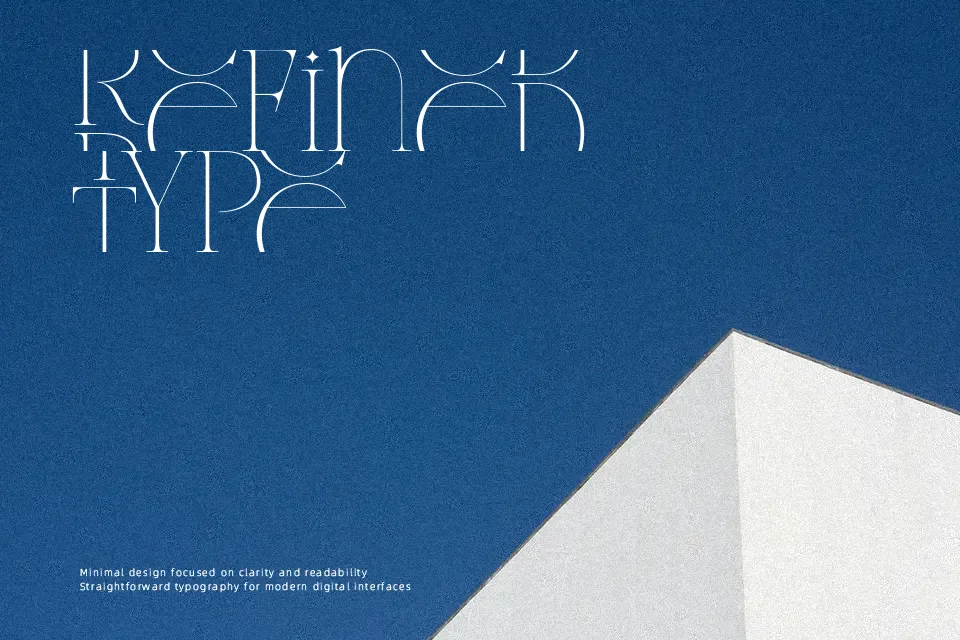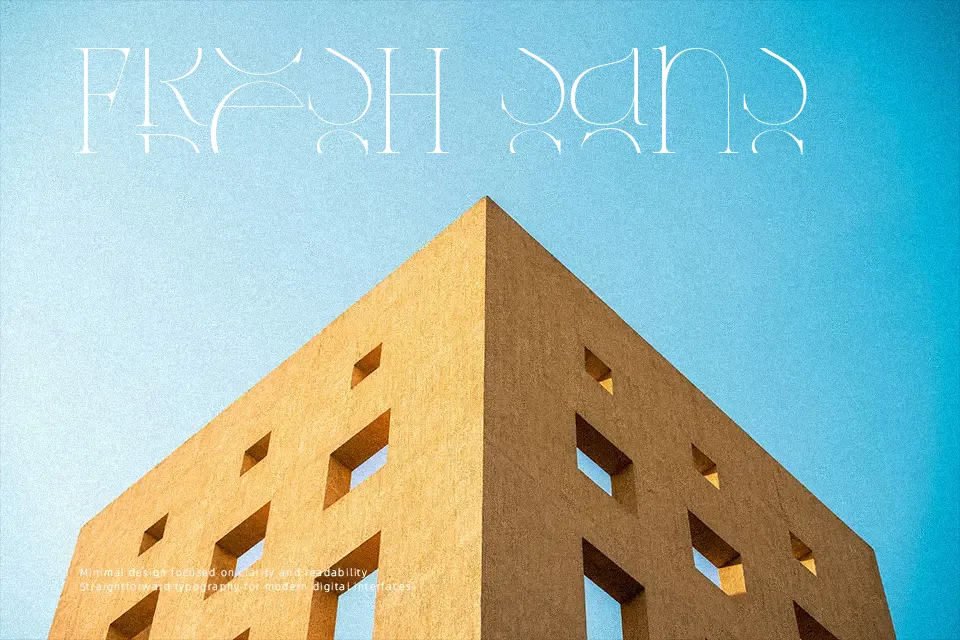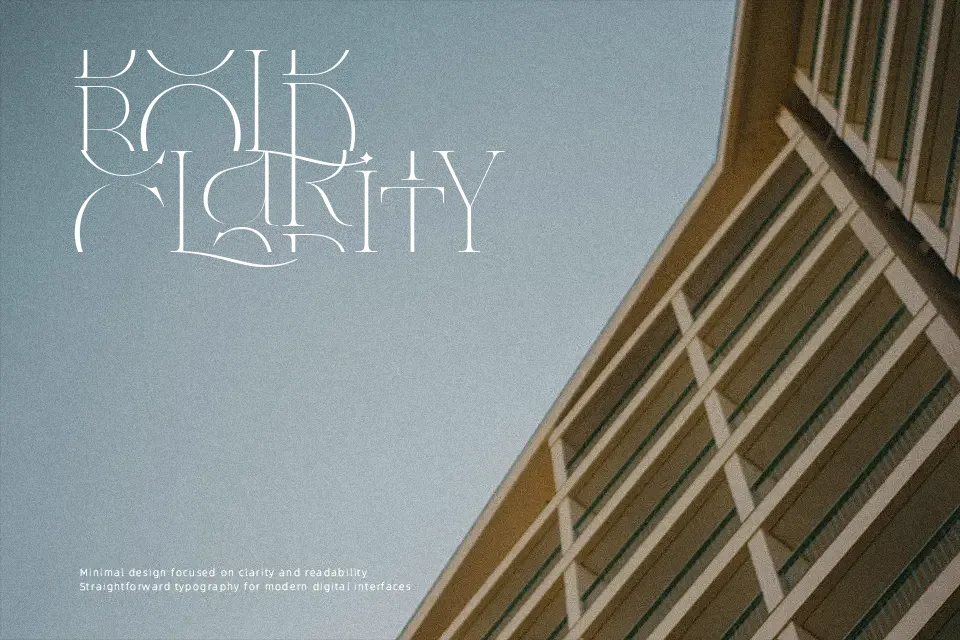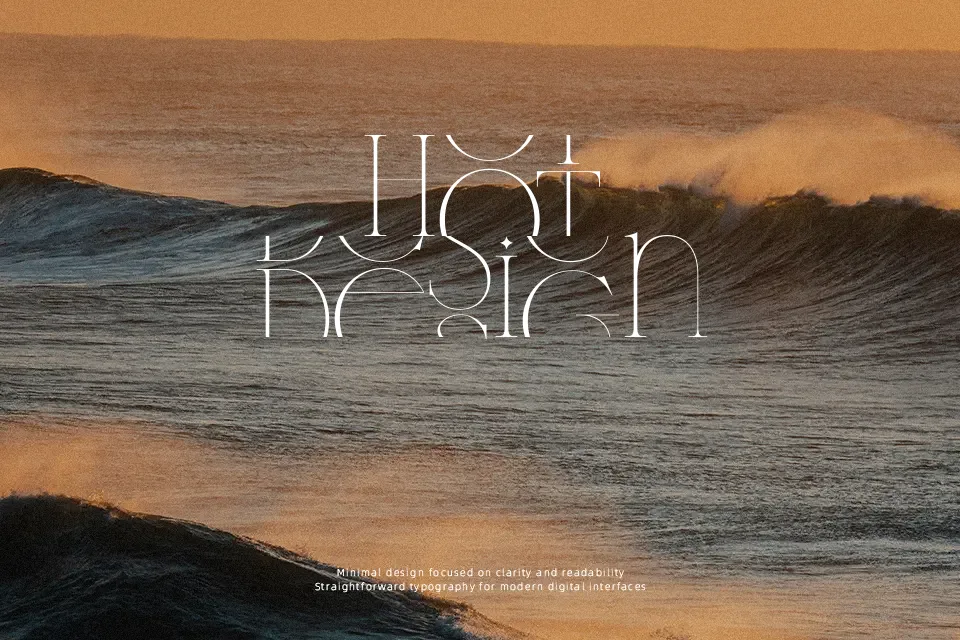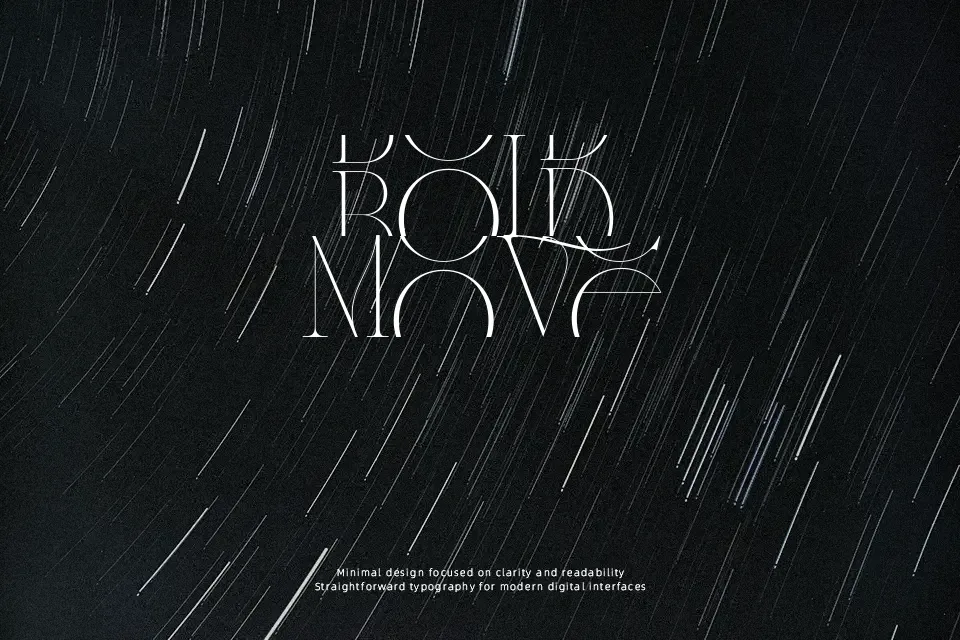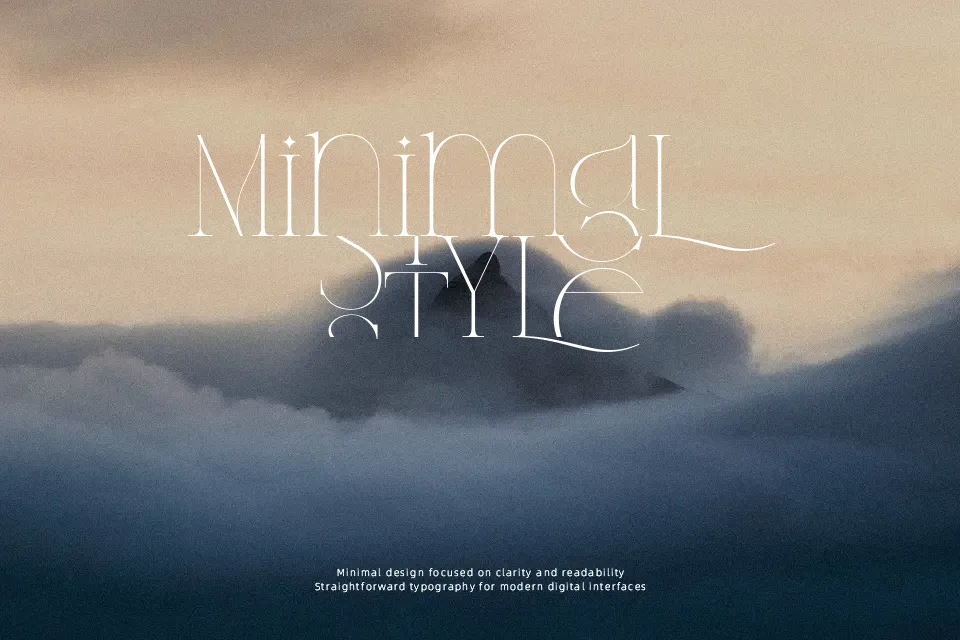
Centers George Font
Centers George Font introduces an expressive serif aesthetic built upon high stroke contrast and distinctive terminal shapes. The letterforms combine crisp vertical stems with stylized, fluid curves that establish a dynamic rhythm across large display settings. Generous character width and moderate letter spacing preserve structural clarity in short lines of text, though the intricate serifs and sharp details make continuous long-form reading difficult. In practical application, the design offers exceptional visual impact when set as a primary headline or focal branding element. Extended paragraphs tend to lose legibility due to the pronounced contrast, making this typeface best reserved for prominent titles.
Best For: luxury packaging labels,fashion magazine headlines,editorial poster titles,premium branding marks
Not Ideal For: continuous book text,small mobile captions,dense tabular data,long body paragraphs
Perfect for branding, headline, and logo, with a creative and decorative style.